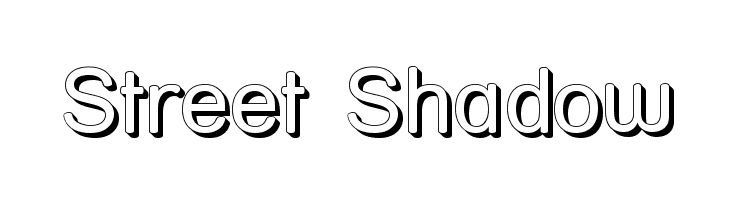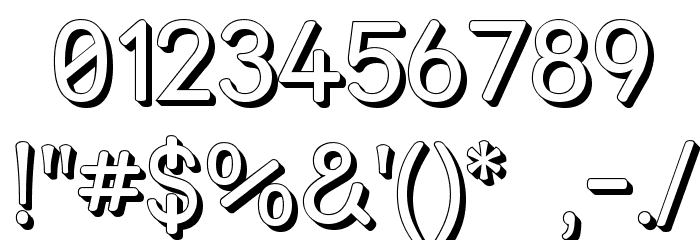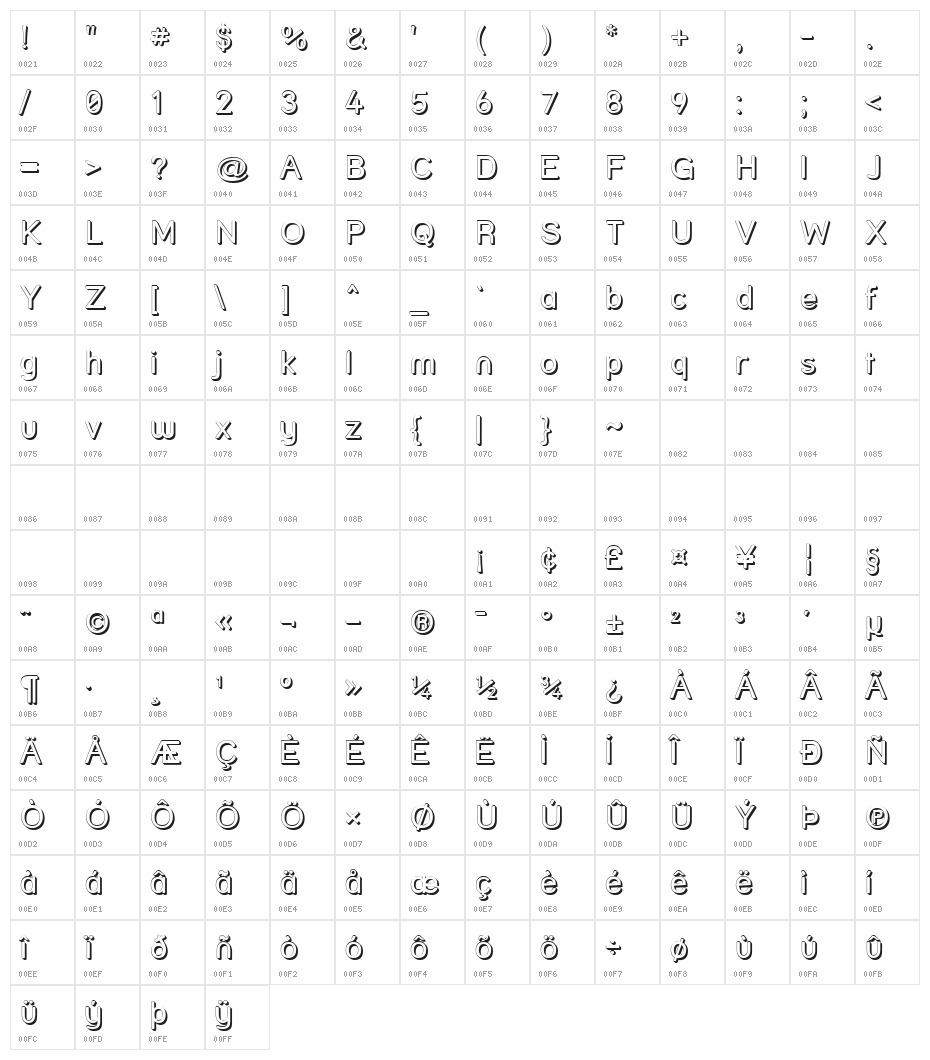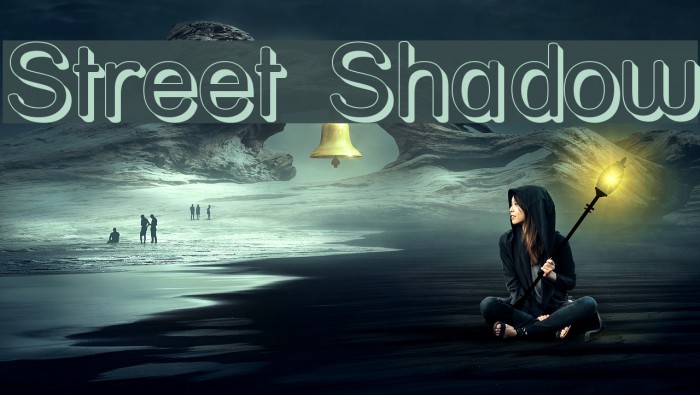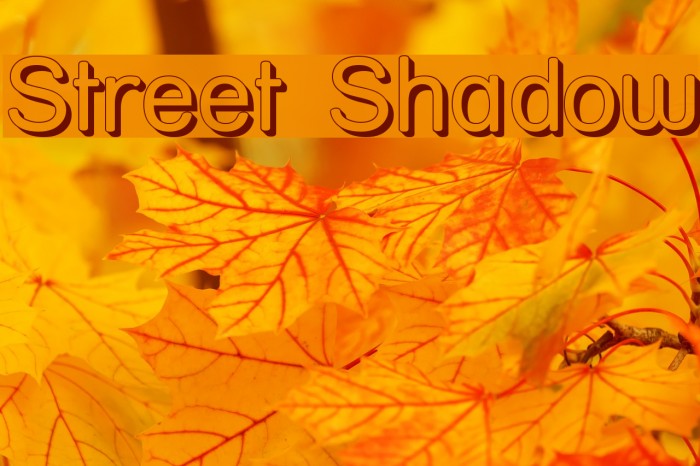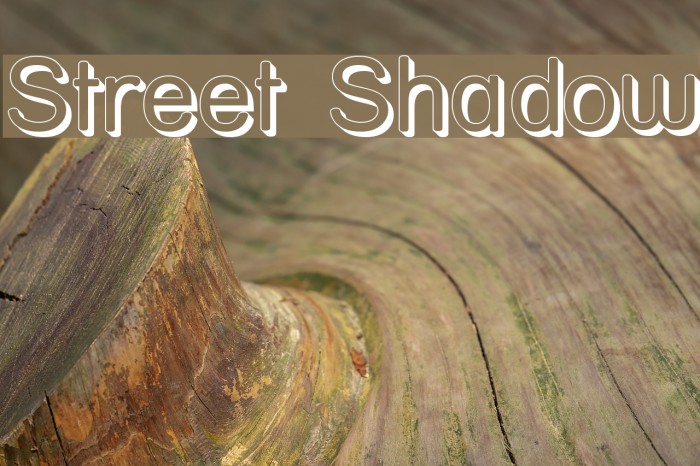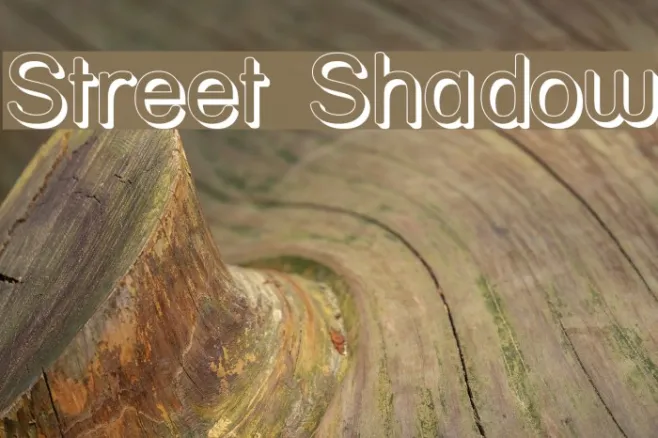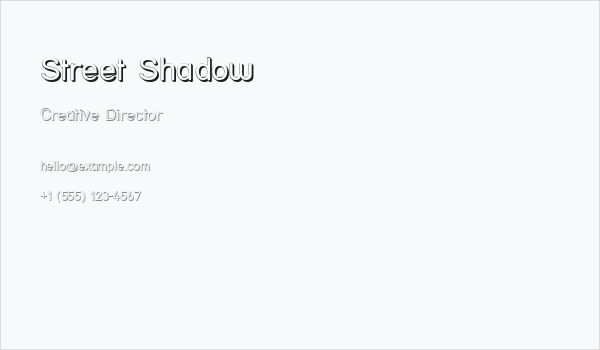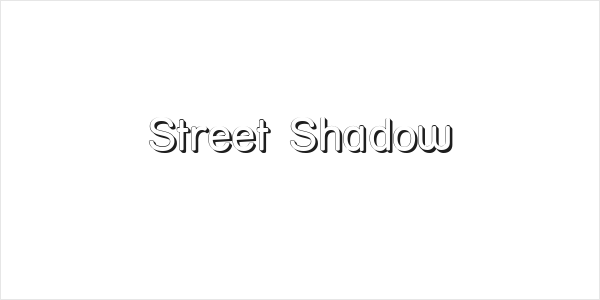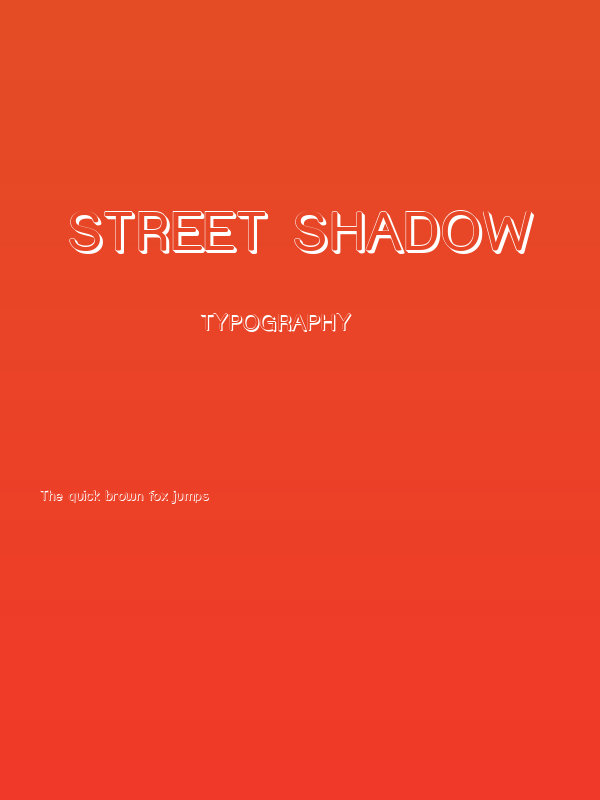
Street Shadow Font
Street Shadow Description
This font features a bold, modern design with a distinct shadow effect that gives it a three-dimensional appearance. The characters are sans-serif with clean, geometric lines, making them highly legible. The shadow adds depth and a playful touch, making it suitable for eye-catching designs. The uppercase and lowercase letters maintain a consistent style, and the numerals are clear and well-proportioned. Special characters are included, enhancing its versatility for various design needs.
| Proposed Projects | Ideal for posters, signage, branding, and any design requiring a modern and dynamic appearance. |